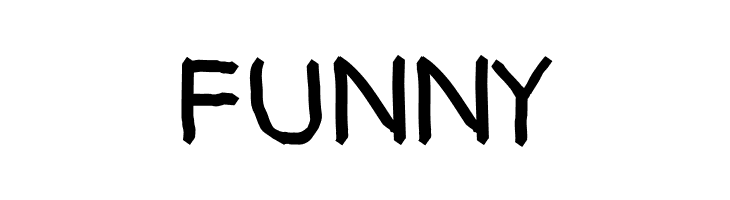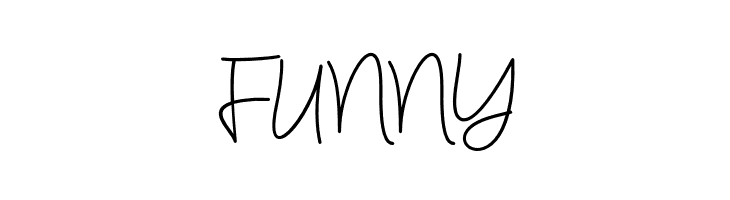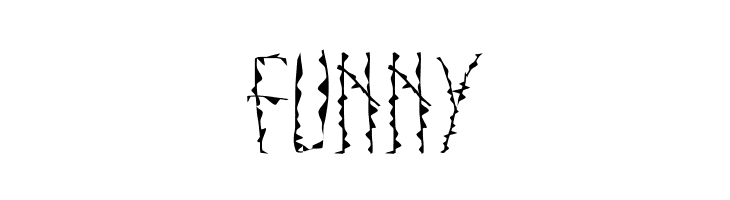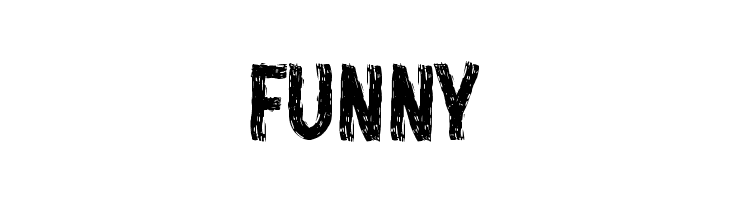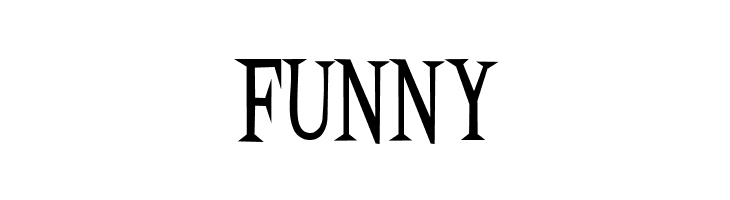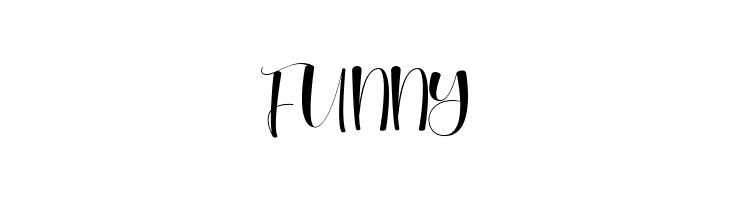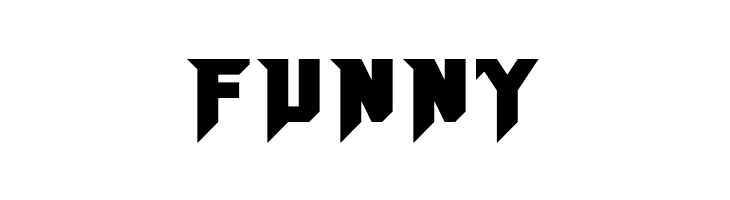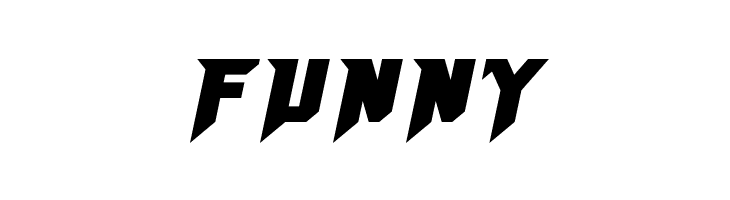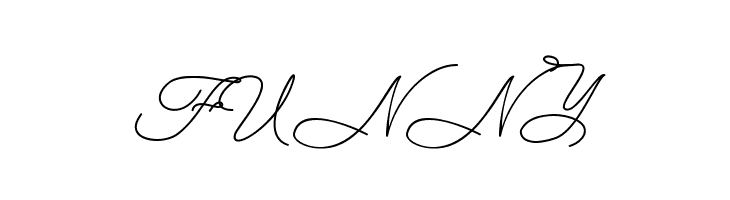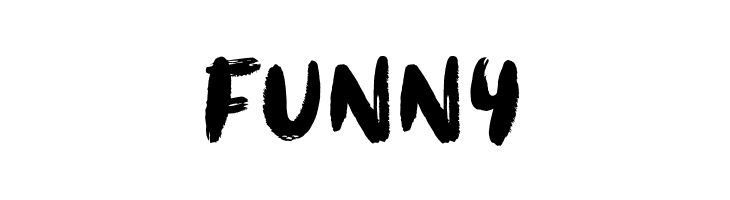
A playful, casual handwritten font with smooth, rounded edges.
A playful and whimsical font with dynamic strokes and quirky curls.
A bold, textured sans-serif font with a distressed, vintage appearance.
A playful and elegant script font with fluid, connected letterforms.
A bold, dynamic script font with a handwritten, calligraphic style.
A bold, dynamic script font with flowing, cursive letterforms.
A bold, textured font with a hand-drawn, sketch-like appearance.
A modern serif font with elegant curves and decorative elements.
A classic serif font with tall, elegant letterforms and high contrast strokes.
A playful, handwritten-style font with bold, rounded characters.
A graceful script font with flowing cursive letters and intricate swashes.
A bold, modern font with Gothic influences and high contrast strokes.
A playful, handwritten font with fluid and organic strokes.
A playful, handwritten font with fluid strokes and a casual vibe.
A bold serif font with high contrast and elegant curves.
A playful, cartoon-like font with geometric shapes and whimsical characters.
An illustrative, Buddhism-themed decorative font with pictorial glyphs.
Illustrative, Buddhism-themed pictogram font.
A playful handwritten font with smooth curves and a casual style.
Bold, retro decorative font.
A bold, stencil-style font with a rugged, bleedy texture.
A lively and expressive script font with bold, flowing characters.
A bold, high-contrast font with thick strokes and elegant curves.
A bold, rounded font with smooth curves and a modern aesthetic.
A bold, rounded font with smooth curves and a friendly appearance.
An edgy, thorn-like decorative font with a bold, rebellious style.
An elegant script font with flowing curves and decorative swirls.
A bold, brush-style font with expressive, hand-painted strokes.
A dynamic and elegant script font with high contrast and flowing strokes.
A bold, geometric font with sharp, angular edges and a futuristic style.
A bold, geometric font with sharp, angular edges and a modern, industrial feel.
A bold, angular font with a dynamic and energetic style.
A bold, angular, and italic font with a futuristic and energetic style.
A lively and elegant script font with flowing, cursive letterforms.